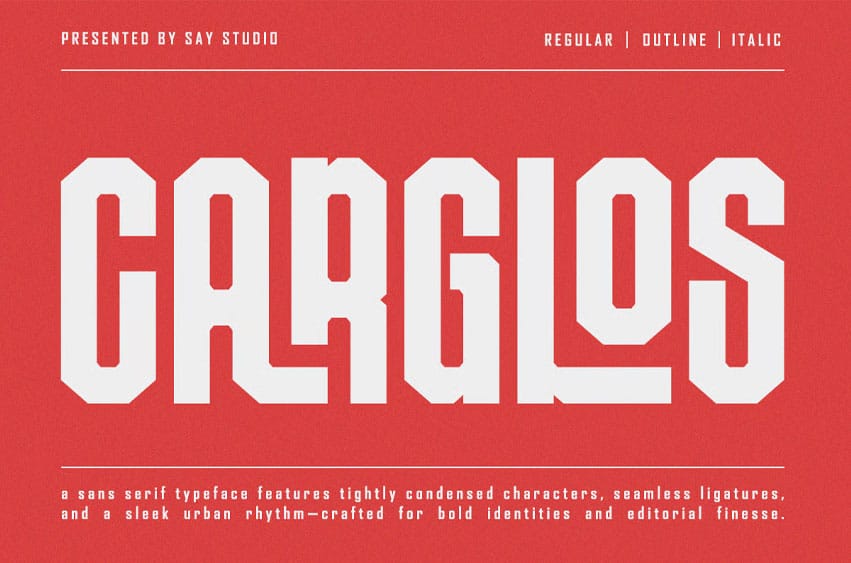
Cargloss Font is a simple, condensed sans serif font with a bold and complex personality. It was purposely crafted to be used in large point sizes, although it doesn’t lose its magic in small point sizes.
Carglos is perfect for headlines, billboards, magazines, websites, titles, posters, branding, and logos. With tons of ligatures, alternates, and other features to choose from, you can make your project stand out from the rest.